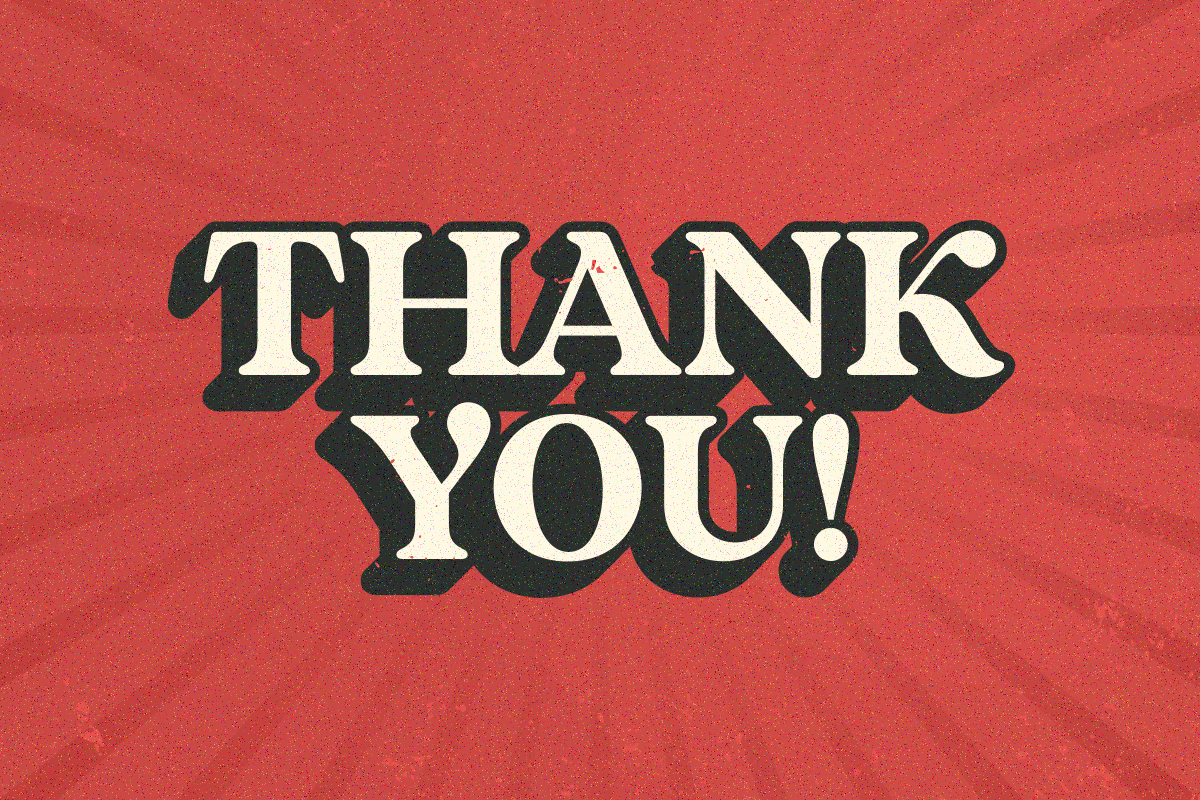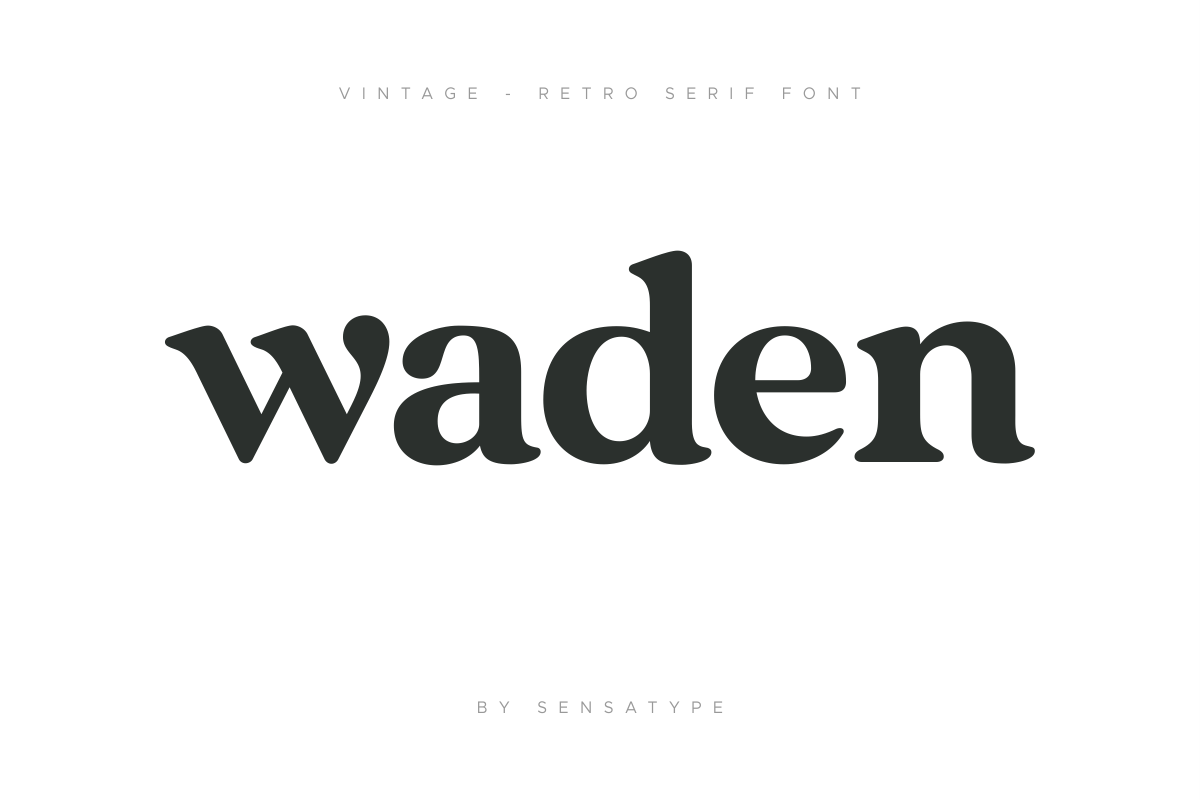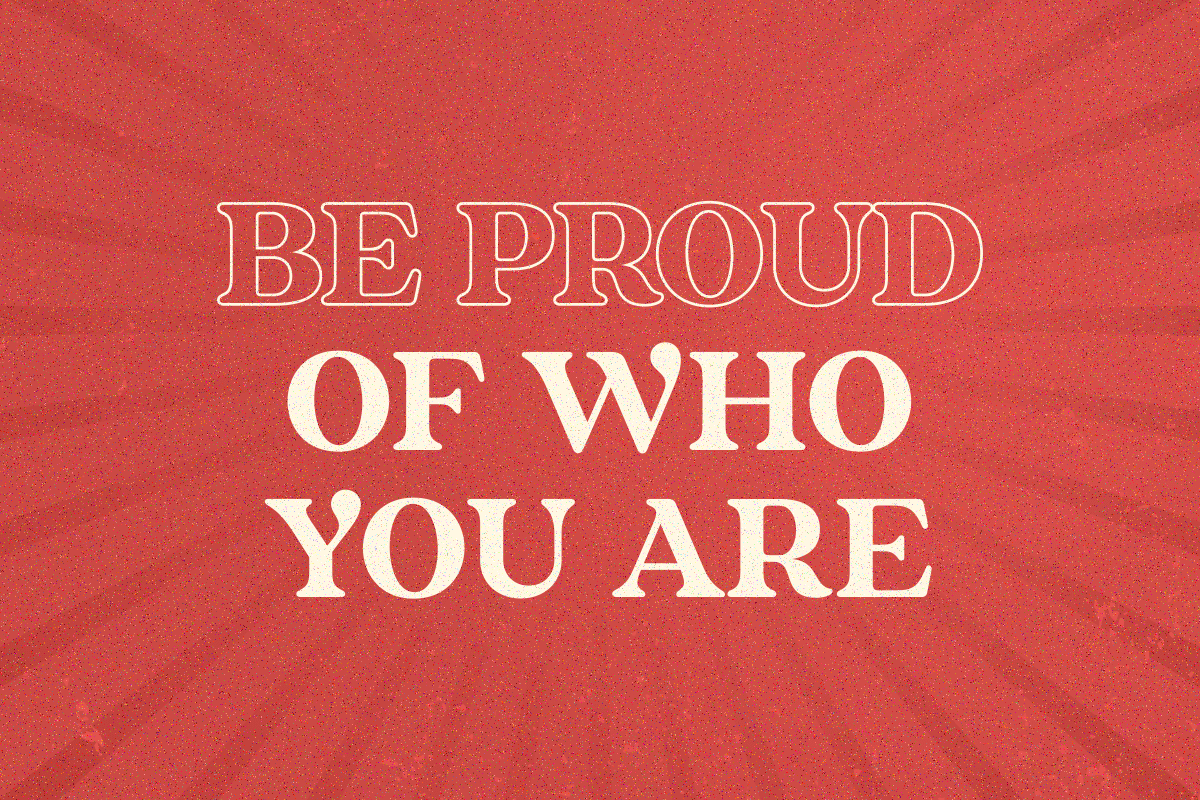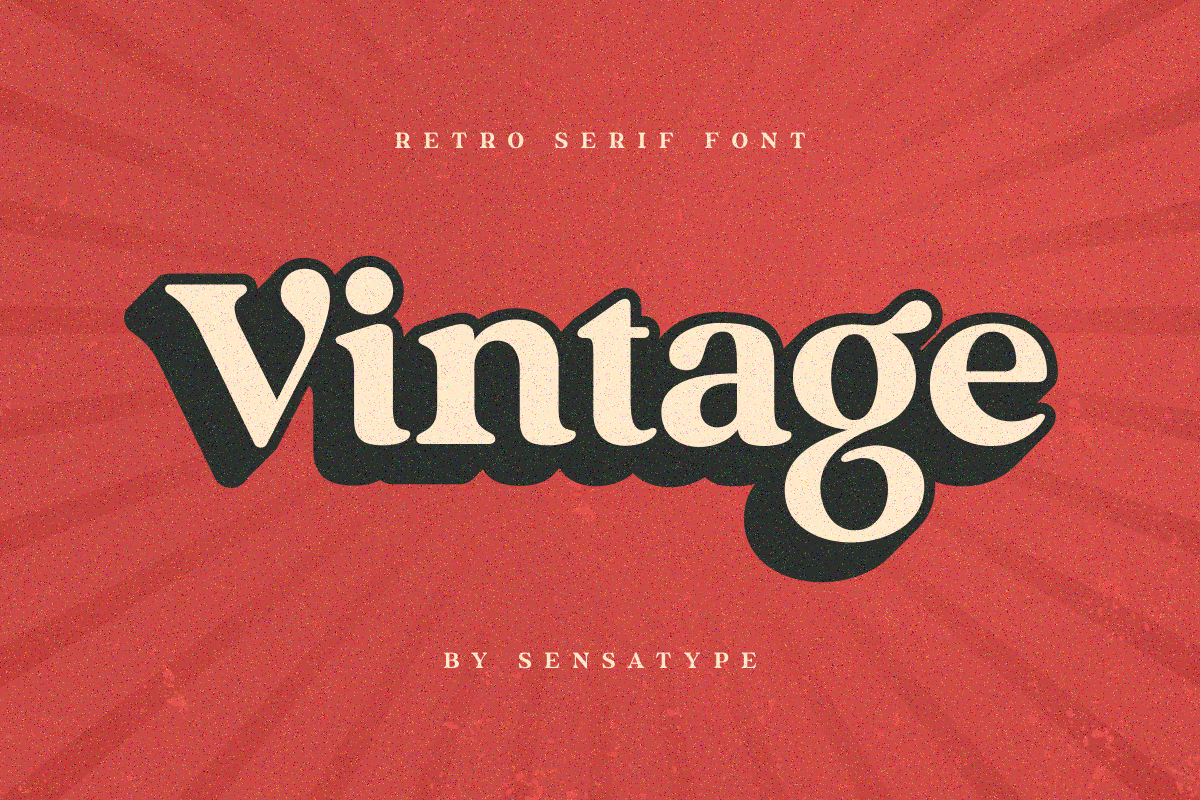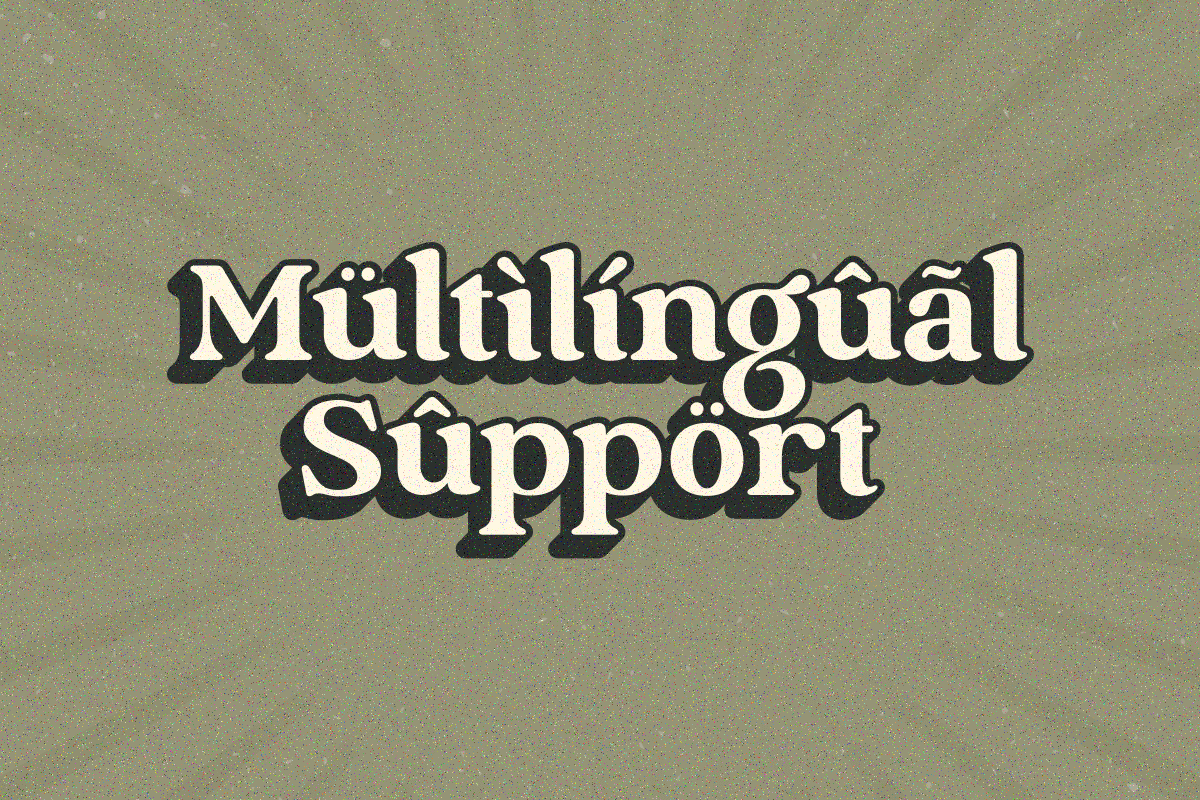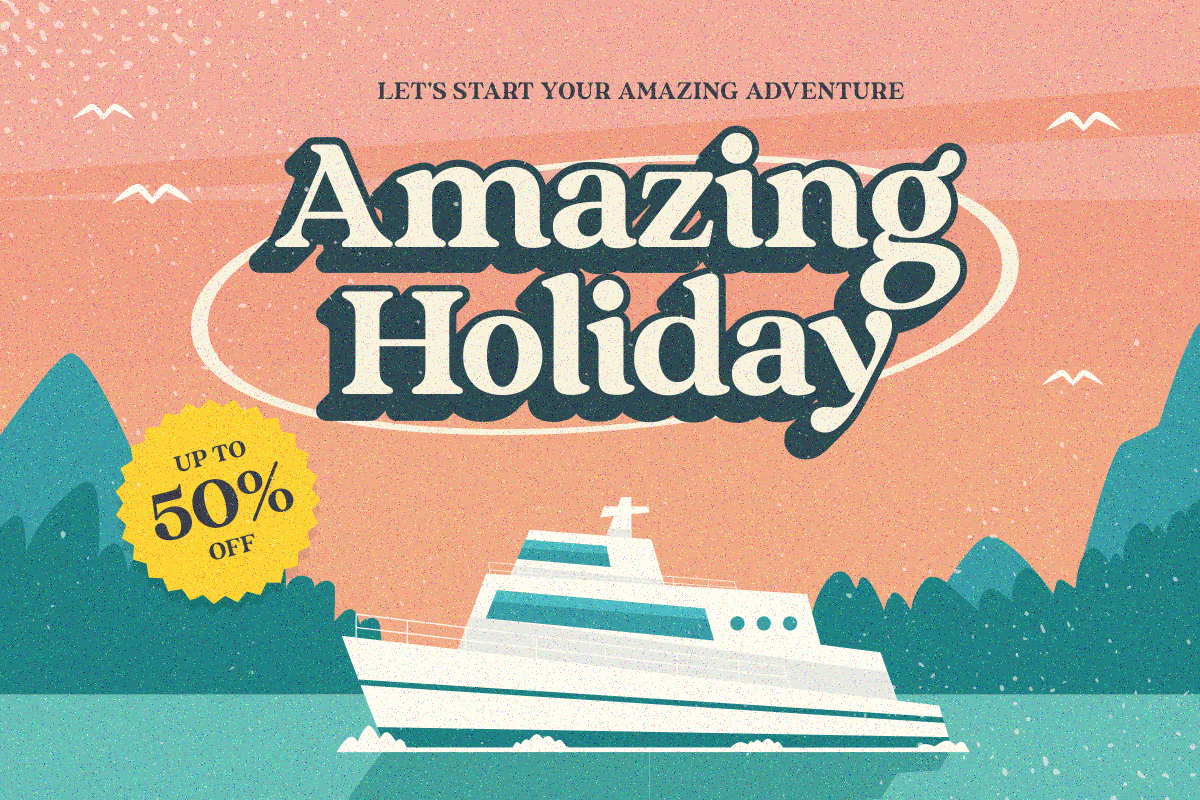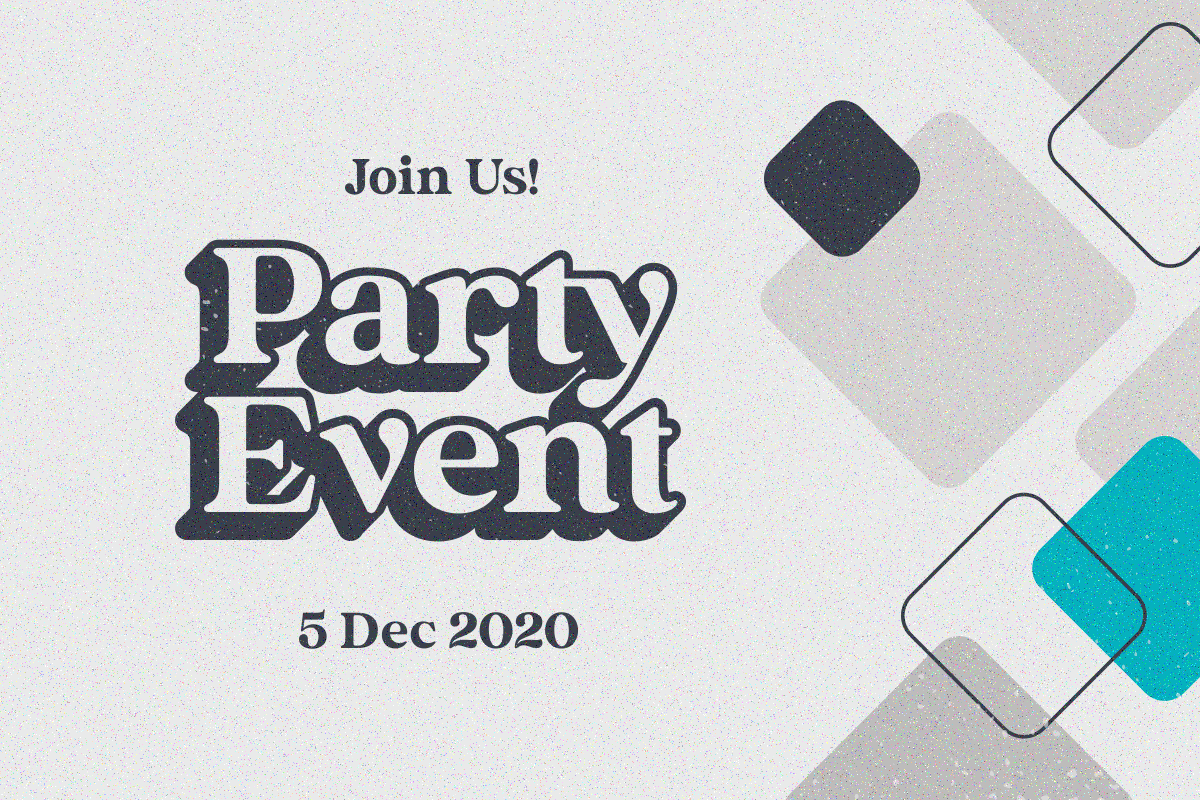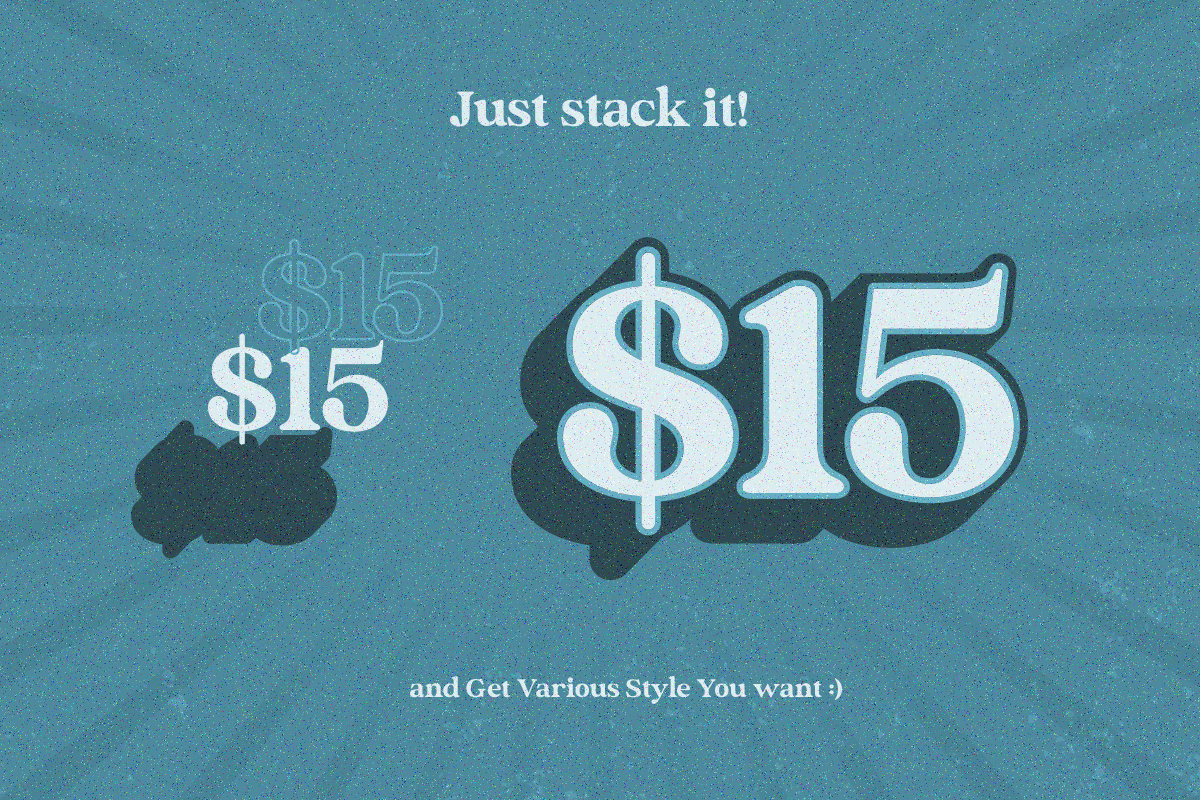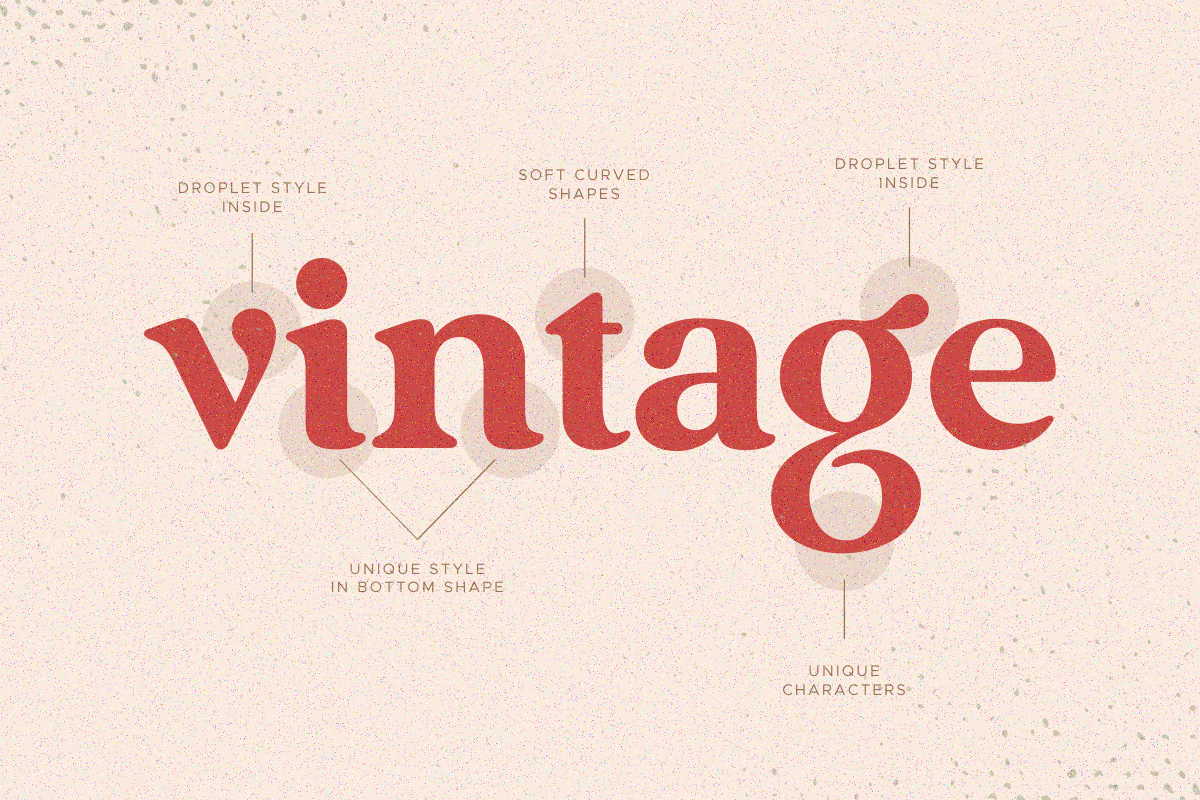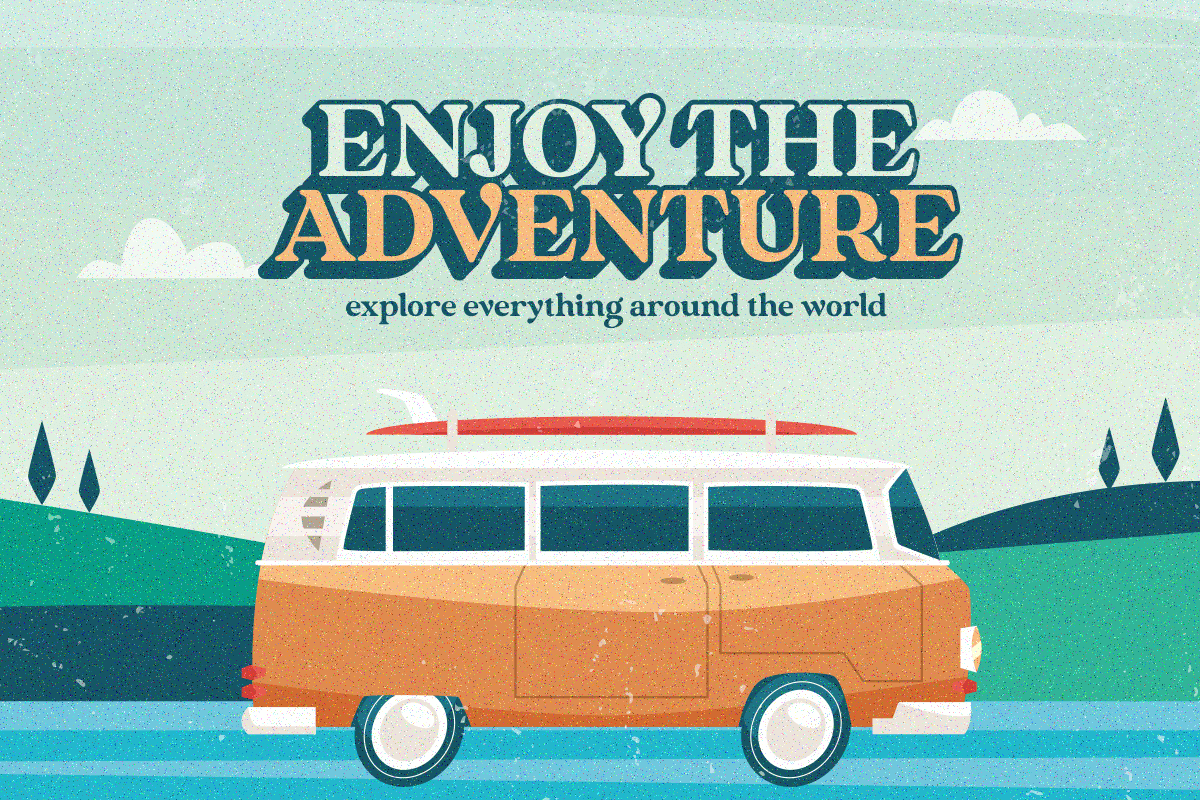
Vintage font is a well-balanced contemporary font with a fancy, unique, and versatile vintage serif font that you can combine to get any variations and unique shapes easily just in seconds with stack it. It is a serif display font with moderate contrast that perfect for branding projects, logo, wedding designs, social media posts, advertisements, product packaging, product designs, label, photography, watermark, invitation, stationery, and any projects, it makes with a high level of legibility.
Character set A-Z
Accented Characters (West Europe)
Stylistic alternates
In love with this font! Unique and gives major vintage vibes. So fun to use.